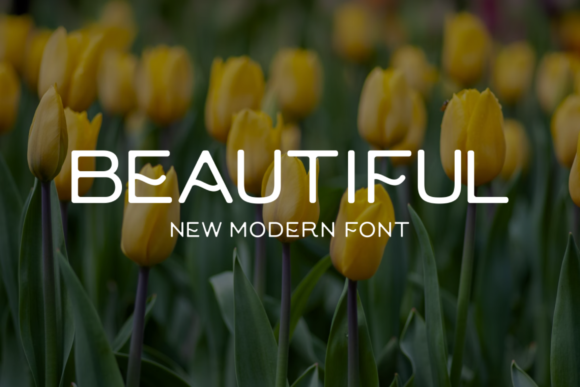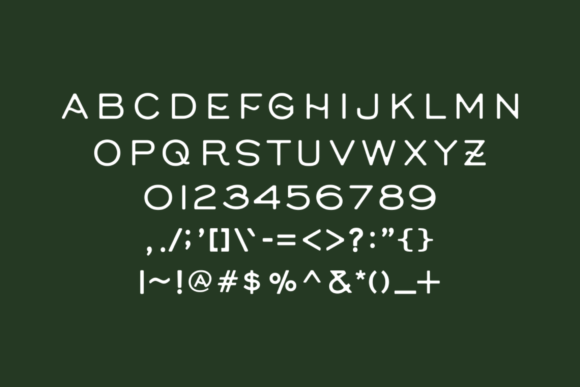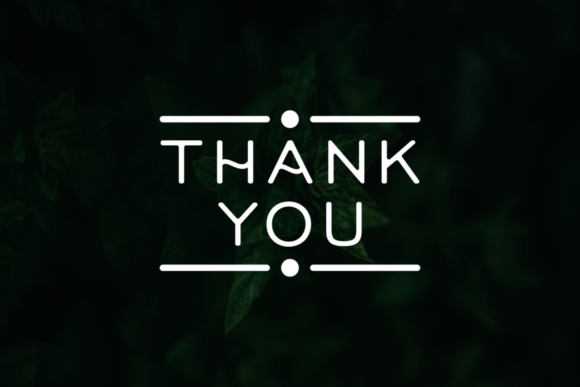
Introduction to Long Wave Font
Have you ever been working on a creative project, staring at a blank canvas, and suddenly a spark of inspiration hits you? The idea flows effortlessly, and you can’t wait to bring it to life. This is exactly the feeling you get when working with the Long Wave Font, a modern and authentic sans serif font that’s perfect for any branding project.
As a designer, you’re always on the lookout for high-quality design resources that can elevate your work and make it stand out. The Long Wave Font is a valuable addition to your design arsenal, offering a transparent background and a wide range of glyphs and swashes that can be easily accessed with its PUA encoding.
Key Features of Long Wave Font
- High-quality, vector-based font with a unique wave-like design, perfect for creative projects.
- Includes a transparent background, making it easy to use on any design resource or project.
- Designed at 300 DPI, ensuring high-resolution output and crisp text rendering.
- Perfect for use in digital design, including logos, graphics, and typography-based projects.
- Can be scaled to any size without losing quality, making it ideal for use in various design contexts.
Honest Review: Long Wave Font
As a designer, I’m always on the lookout for high-quality design resources that can elevate my creative projects. Recently, I stumbled upon the Long Wave Font, and I’m excited to share my honest review with you.
First off, I love that the Long Wave Font is available for free download. It’s a great resource for designers who are working on a budget or just starting out. The font itself is beautifully designed, with a modern and sleek aesthetic that’s perfect for a variety of creative projects.
One of the standout features of the Long Wave Font is its transparent background, which makes it easy to layer over other design elements. This is a huge plus for designers who need to create complex compositions.
- High-quality design that’s perfect for modern creative projects
- May not be suitable for projects that require a more traditional or vintage aesthetic
- Some users may find the font too minimalist
Overall, I’m really impressed with the Long Wave Font. It’s a great addition to any designer’s toolkit, and I’d definitely recommend it to anyone looking for a high-quality, modern font.
Tips for Getting the Most Out of Long Wave Font
Here are some tips for getting the most out of the Long Wave Font: use it in a creative project to add a unique touch, experiment with different font sizes and colors to create a visually appealing design, and consider using the font in a transparent background to add depth to your design.
The Long Wave Font is a versatile design resource that can be used in a variety of projects, including: social media graphics, posters, flyers, and business cards. It’s also a great choice for designers looking for a high-quality, free download font to use in their creative projects.